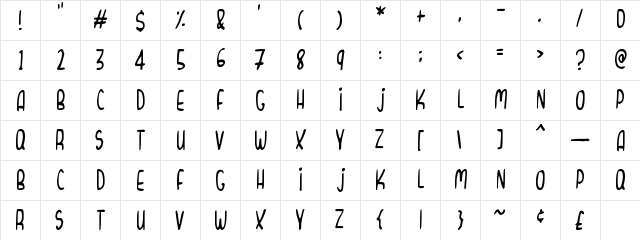
Curvy Thins Regular
Design Context for Curvy Thins Typeface
Curvy Thins offers clean, dependable letterforms without strong stylistic allegiance, making it a practical choice for designers who need flexibility. The delicate stroke weight brings airiness and refinement to layouts.